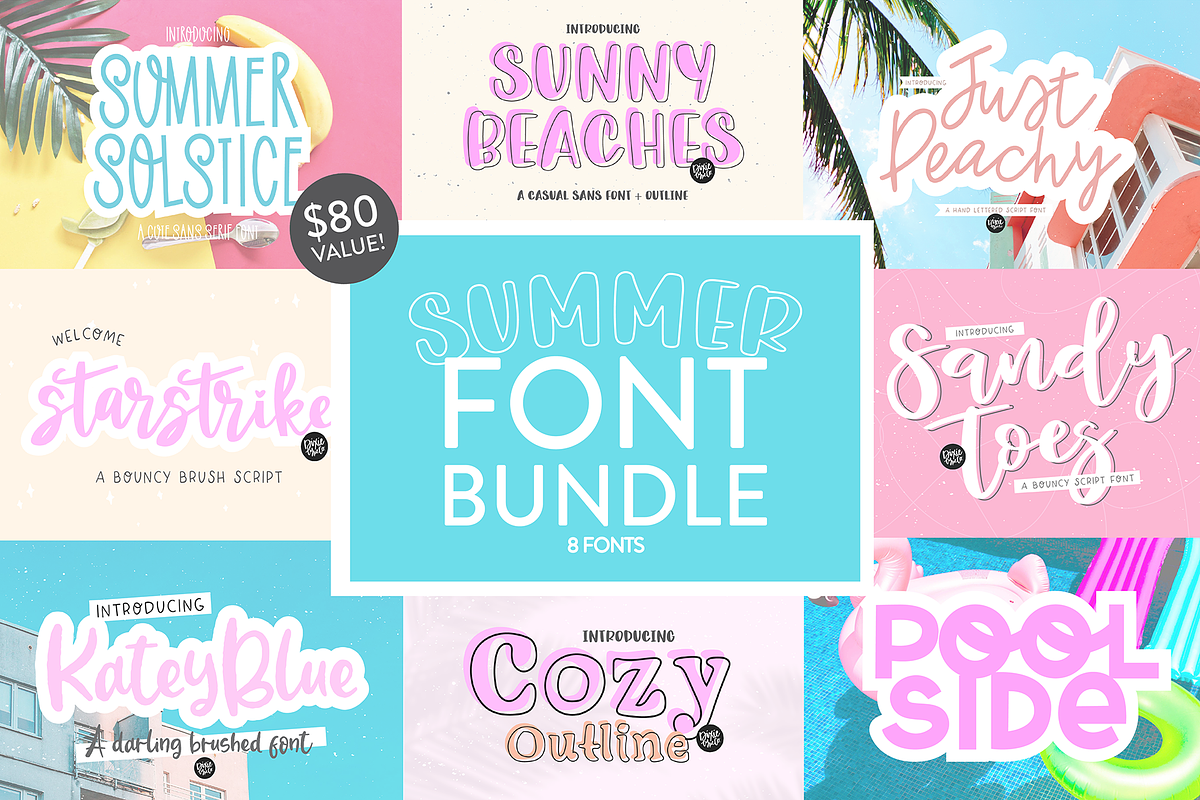
Summer Font Bundle – Hand Lettered Free Download is a sunny, joy-filled collection of handwritten typefaces designed to capture the carefree vibes of summer. With a mix of playful scripts, bold markers, and casual brush styles, this bundle is perfect for beach party invites, vacation t-shirts, Instagram posts, tropical packaging, and creative branding projects.
Each font in the collection is bursting with character—whether you're going for flirty and fun or laid-back and breezy. These hand-lettered fonts are made to shine in both print and digital formats, giving your designs an authentic, sun-kissed look.